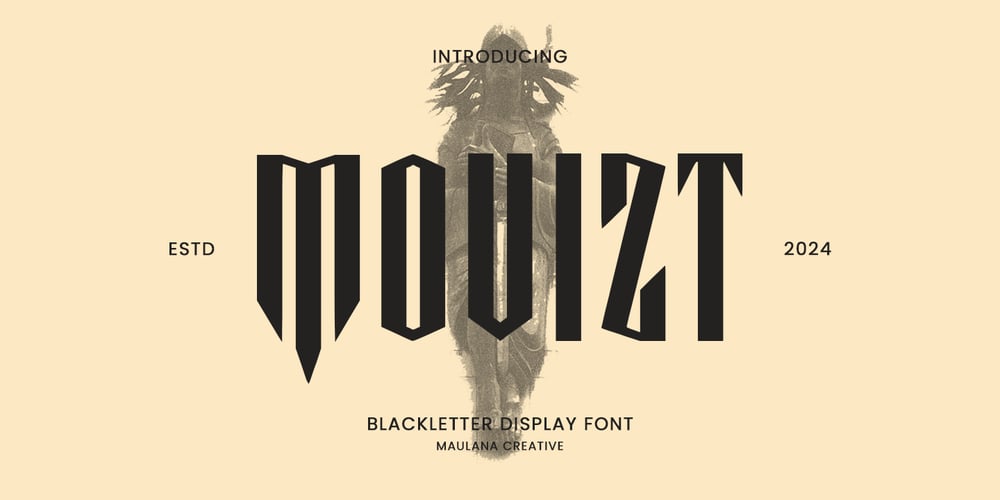
MC Movizt
MC Movizt font
MC Movizt Font Family was designed by Gilang Maulana and published by Maulana Creative. MC Movizt contains 1 styles and family package options. Movizt blackletter display font. Heavy stroke, fun character with a bit of ligatures. To give you an extra creative work. Movizt blackletter display font support multilingual more than 100+ language. This font is good for logo design, Social media, Movie Titles, Books Titles, a short text even a long text letter and good for your secondary text font with script or serif. Make a stunning work with Movizt blackletter display font. Cheers,Maulana Creative